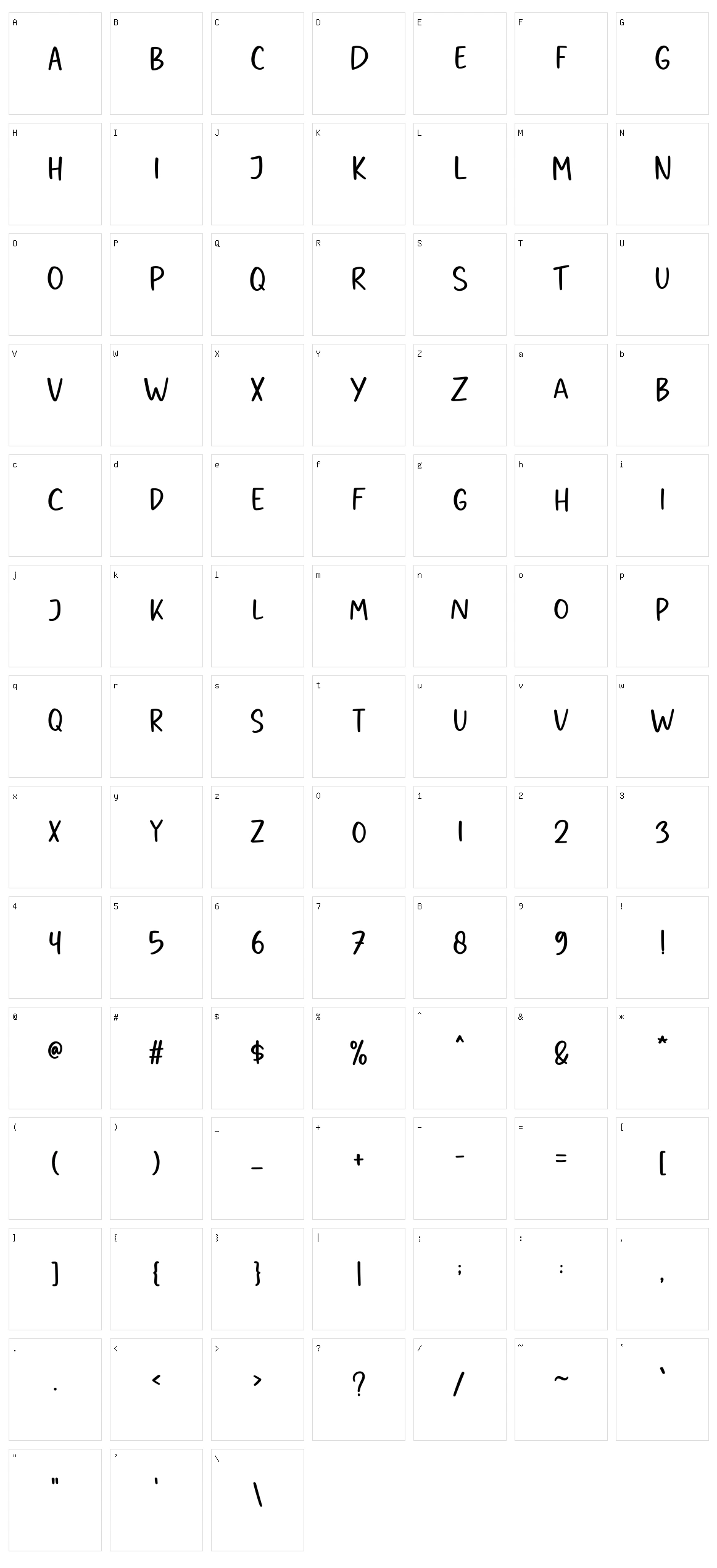
The free font Cabins And Castles is carefully designed by Graphix Line Studio, showcasing a thoughtful balance of creativity and usability and falls under the Script font style. When you download the ZIP file, it contains only 170.87 KB of font files, making it lightweight and quick to download. Please review the license details below to understand permitted usage and distribution rights. If license information is not available, we recommend using this font for personal projects only or contacting the author directly for commercial usage permissions.